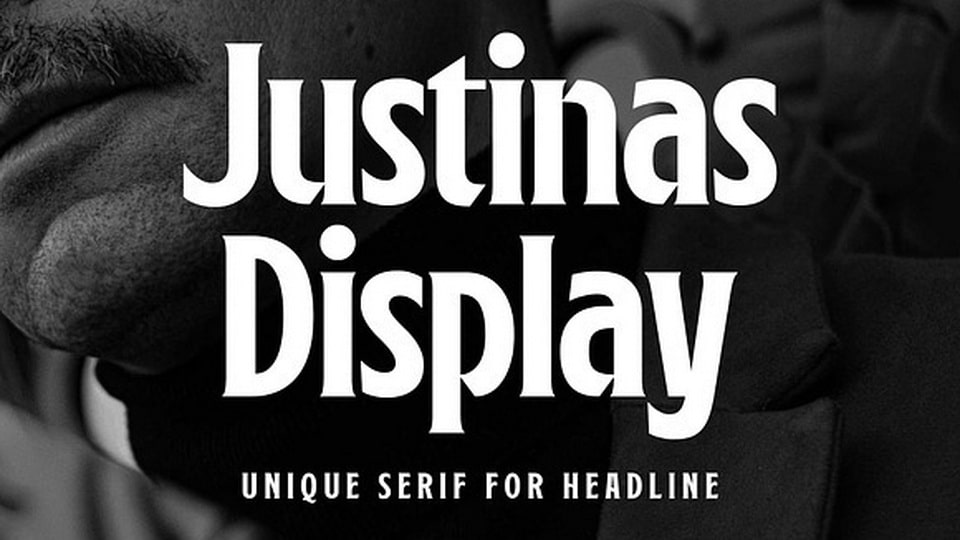
Download Justinas font a bold display serif typeface, perfect for headlines. With its condensed design and sharp edges, it brings elegance and strength to your designs.